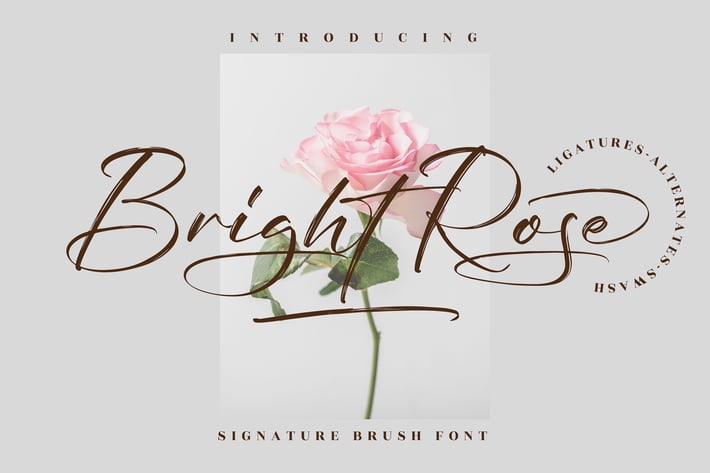
Bright Rose Signature Brush Font
Bright Rose is a signature brush font with a romantic, graceful flow — soft yet expressive, like handwritten ink dancing on paper. It captures a delicate balance between elegance and warmth, giving your designs a charming, heartfelt presence that feels personal and timeless.
Signature brush style with smooth, flowing strokes
Elegant curves with natural handwritten movement
Includes stylish ligatures & alternates
Expressive yet clean for easy readability
Perfect mix of romance and modern charm
Signature logos & personal branding
Wedding, beauty & lifestyle designs
Quotes, posters & social media content
Invitations, cards & stationery
Elegant packaging & creative projects
Soft, romantic, and effortlessly beautiful — Bright Rose feels like a handwritten signature with floral soul.*